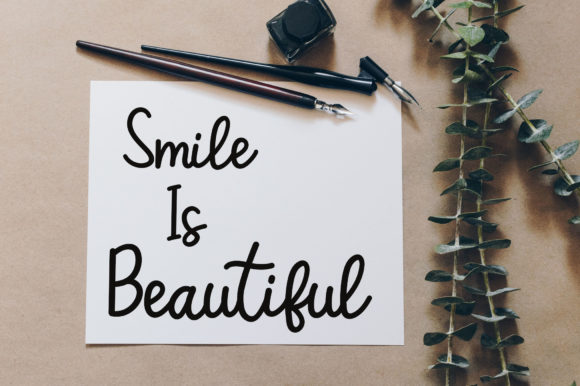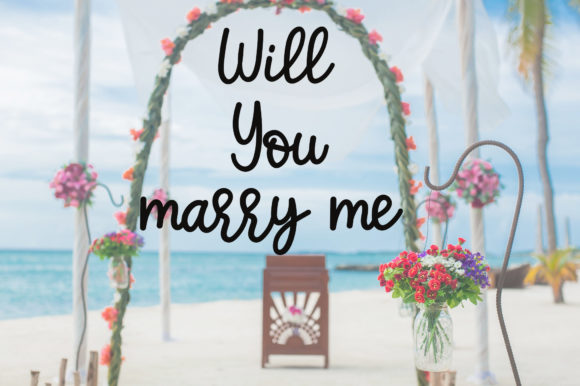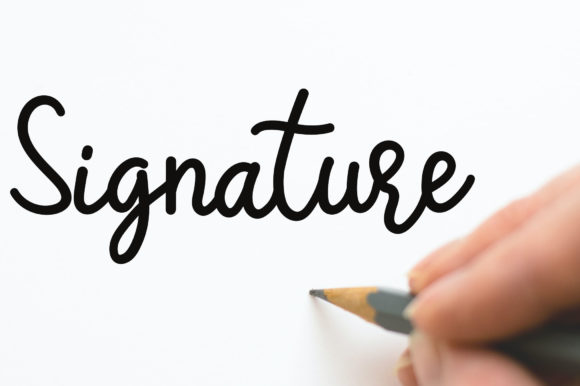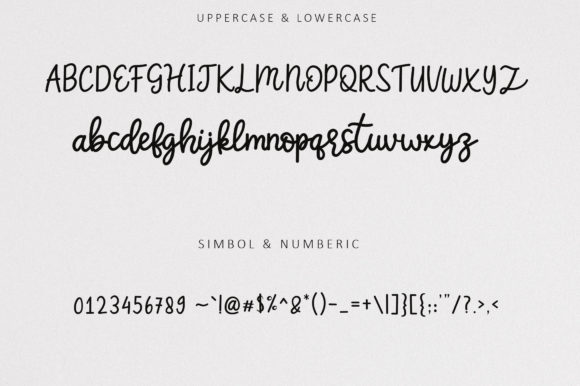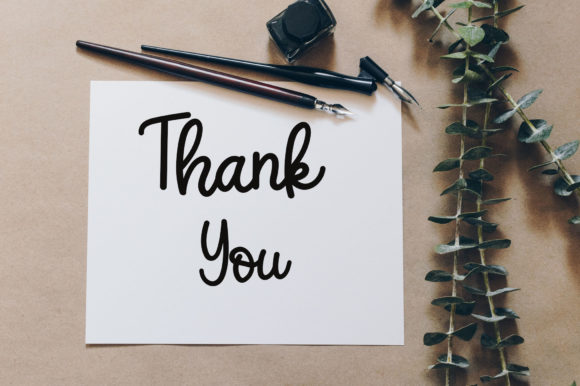
Introduction to Kathline Font
Kathline is a cute and simple lettered handwritten font that can be used for all chalkboard quotes or teaching material.
Its authentic look will add a personal and realistic feel to your designs .
Key Features of Kathline Font